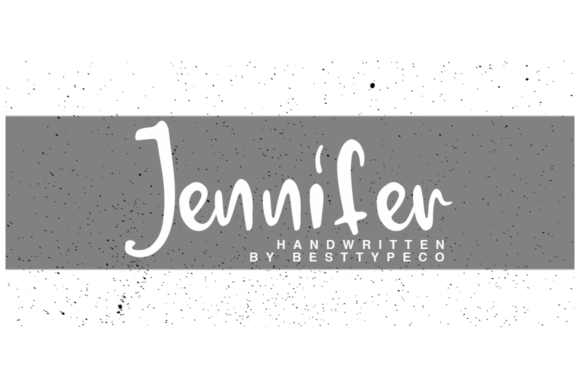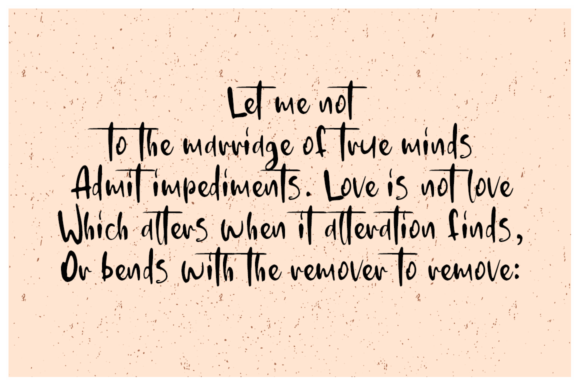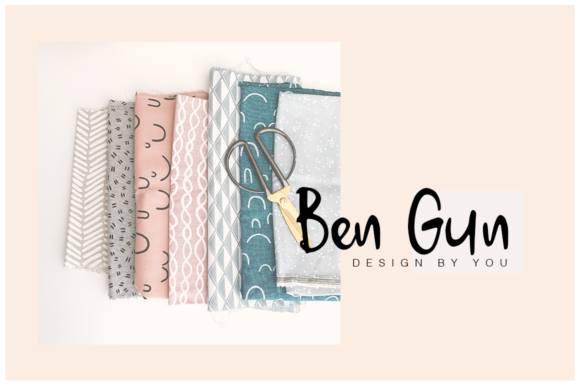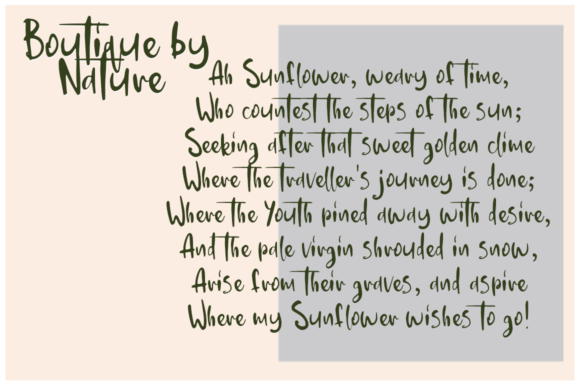
About Jennifer Font
Jennifer is a lovely and timeless handwritten font. It is the best choice for creating eye catching logos, branding and quotes. Every letter has a unique and beautiful touch, which will make your design come alive!